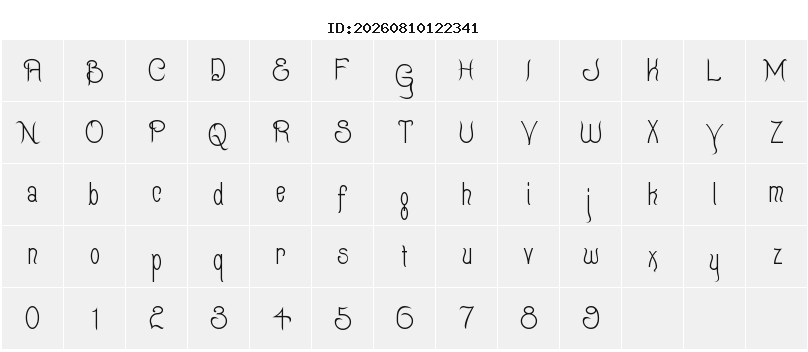
• Font Name: Quixotte
• Designer: Graham Meade
About Quixotte.ttf
Quixotte.ttf is a modern, elegant sans-serif font designed for ultimate readability and visual harmony. Perfect for branding, headlines, web design, and print materials.